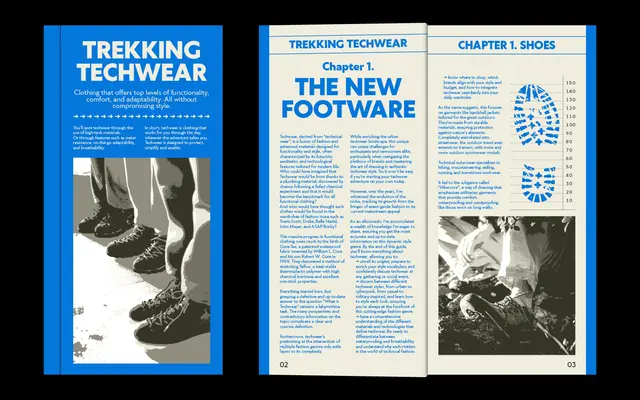
Klein
Zetafonts · Francesco Canovaro, Andrea Tartarelli, Cosimo Lorenzo Pancini · 2019
A 54-font superfamily by Zetafonts that reinterprets Futura's geometry with humanist and grotesque softening across display, text and condensed subfamilies.
Designed by Francesco Canovaro and Andrea Tartarelli with Cosimo Lorenzo Pancini, Klein takes Paul Renner's proportions as its starting point and departs from strict modernist purity with details drawn from humanist sans serifs, particularly Gill Sans. The family spans nine weights with matching italics, repeated across a standard display cut, a Text version with a raised x-height for small-size legibility, and a Condensed subfamily for space-constrained editorial and advertising work. Script coverage extends to Latin, Greek and Cyrillic across 218 languages, and a variable font is available in the full package.
Rooted in the geometric sans tradition via Futura, but tempered with humanist and grotesque details that soften the strict modernist geometry, bringing it closer to Gill Sans than pure Renner.